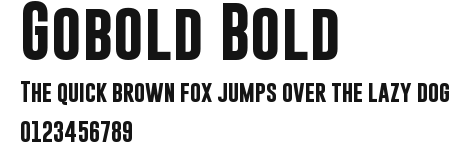
• Font Name: Gobold Bold
• Full Font Name: Gobold Bold
• Designer: Situjuh Nazara
About Gobold Bold.ttf
Gobold Bold.ttf is a modern, elegant sans-serif font designed for ultimate readability and visual harmony. Perfect for branding, headlines, web design, and print materials.